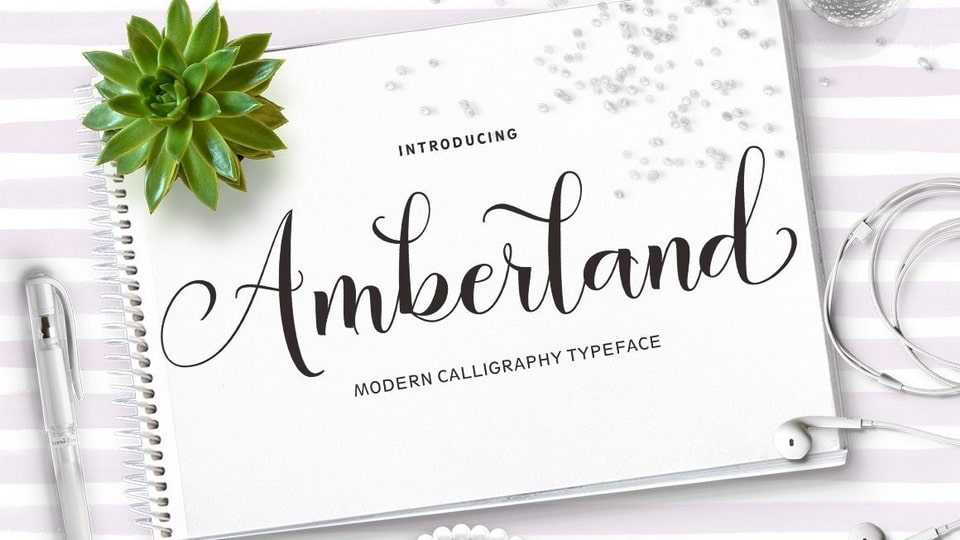
Download Amberland font, a lovely, modern calligraphic script. It features dynamic and pretty swashes and can be used for many purposes, such as titles, signatures, logos, wedding invitations, letterhead, signage, labels, newsletters, posters, badges, etc.